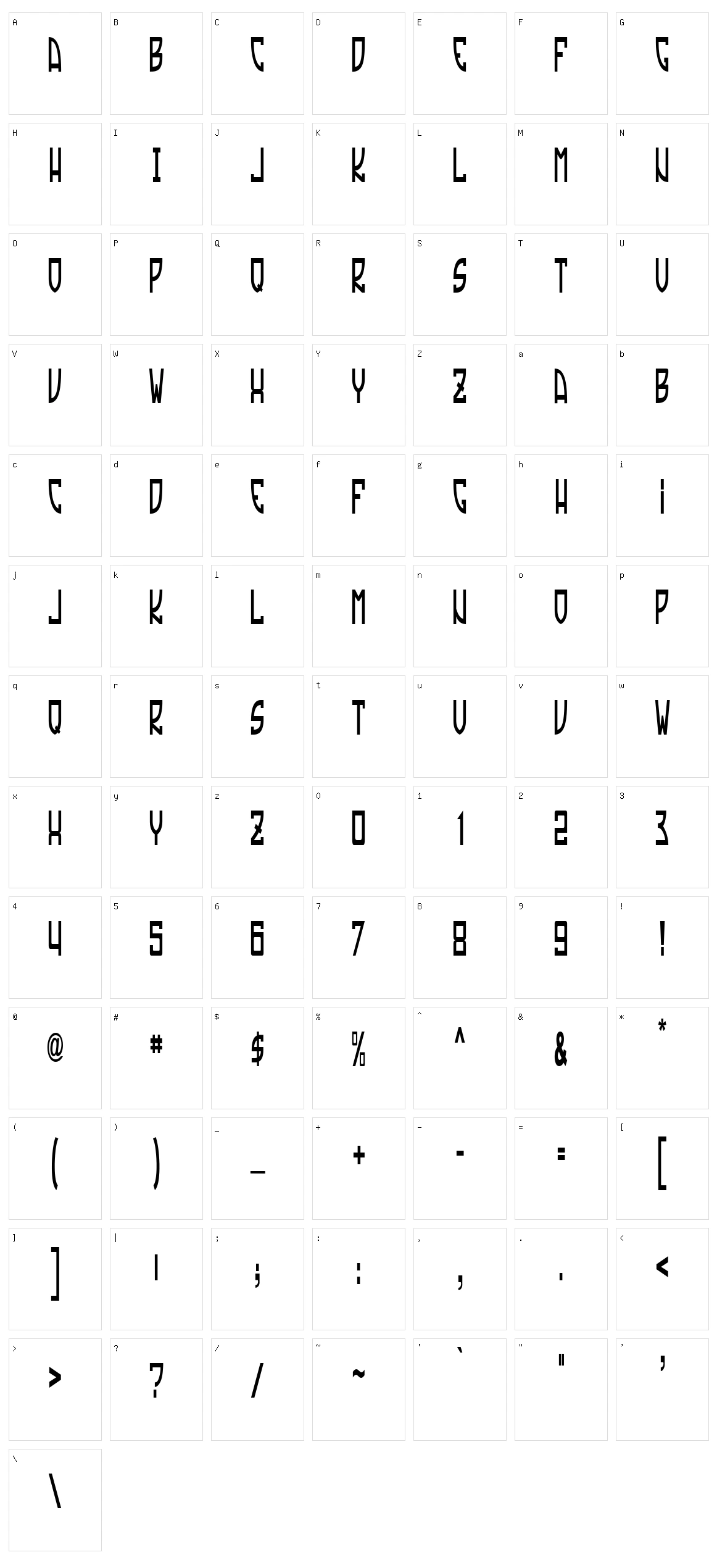
The free font Tradizione is carefully designed by Brusa, showcasing a thoughtful balance of creativity and usability and falls under the Retro font style. When you download the ZIP file, it contains only 36.37 KB of font files, making it lightweight and quick to download. Please review the license details below to understand permitted usage and distribution rights. If license information is not available, we recommend using this font for personal projects only or contacting the author directly for commercial usage permissions.
This font was created by Brusa.